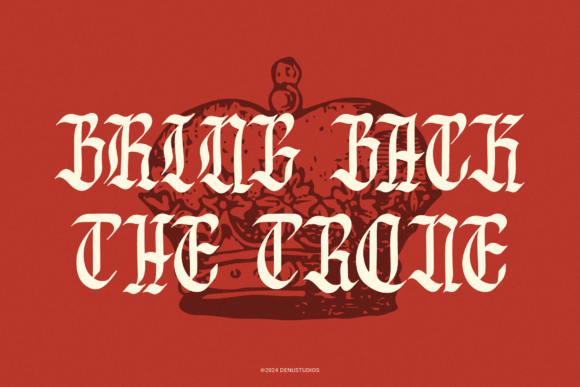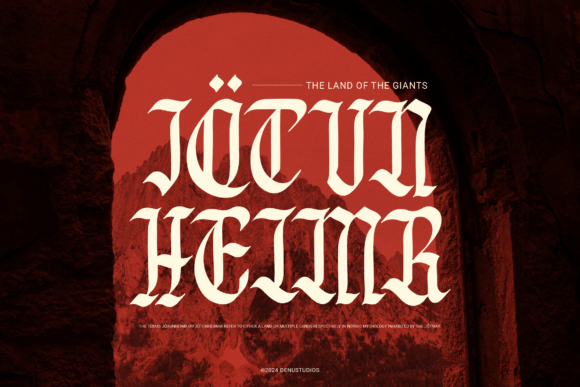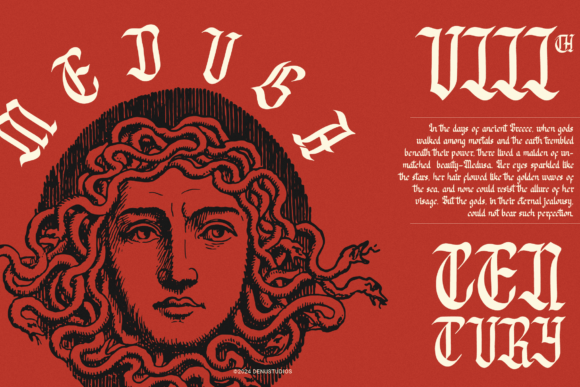
Introduction to Kiosix Font
Kiosix is a bold and stylish blackletter typeface that combines a classic Gothic feel with a modern twist.
Its sharp edges and dramatic curves make it perfect for eye-catching designs like logos, posters, or headlines Kiosix adds a touch of elegance and strength to any project.
Key Features of Kiosix Font